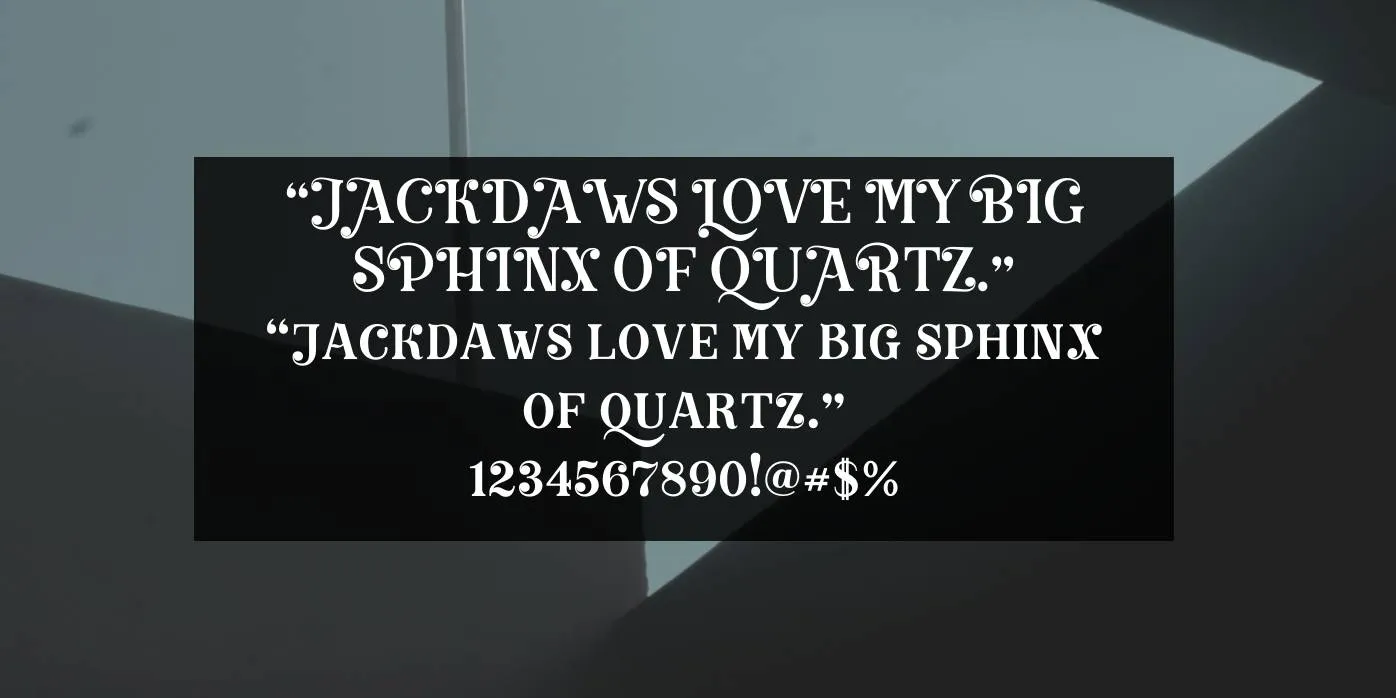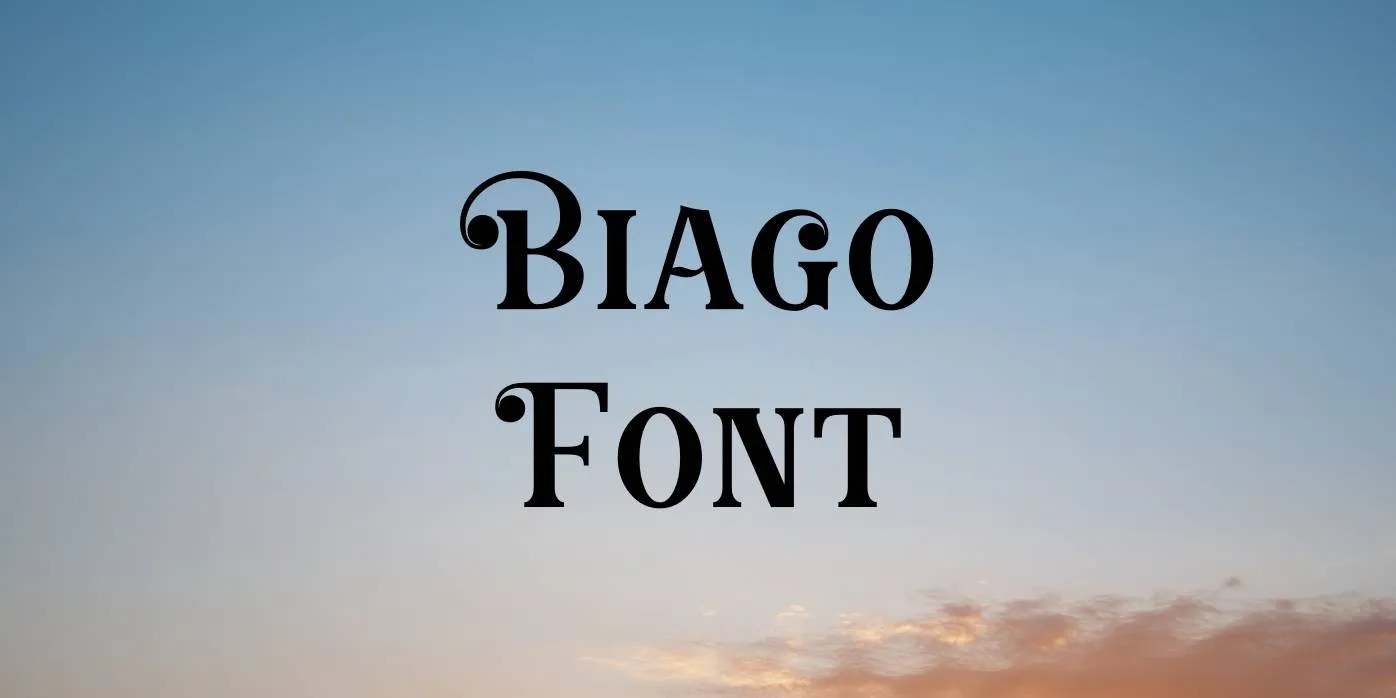
Biago Font
Here, we discuss Biago Font which belongs to the serif font family. This font family was developed and published by Ivan Rosenberg. The font includes both old-style and lining figures, small caps, fractions, ligatures, and more. It is a classic serif typeface that can be used for various purposes such as headlines, body text, and invitations.
Biago Typeface is available in three different styles: Regular, Italic, and Bold. Each style contains 1098 glyphs and supports multiple languages. The regular style has a slim x-height while the italic style is slanted at 12 degrees. The bold style is the heaviest weight with strong serifs.